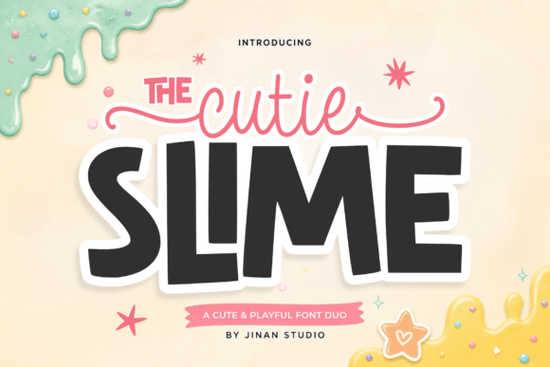
Cutie Slime Duo Font is a font pairing that combines a chunky, bold sans serif with a flowing handwritten script. It draws from slime textures and candy-colored nostalgia, giving designers a cheerful set of tools for projects that need personality without sacrificing readability. If you work on kids' products, party invitations, playful branding, or social media graphics, this duo covers both display and script needs in one download.
What makes Cutie Slime different from other playful fonts?
Most playful fonts lean either too cartoonish or too subtle. Cutie Slime sits in a useful middle ground. The bold sans serif has thick, rounded letterforms that hold up well at large sizes think packaging headers, t-shirt designs, or poster titles. The accompanying script adds a hand-drawn, slightly bubbly quality that works for subheadings, quotes, and accents.
Together, they give you contrast without clashing. You don't need to hunt for a matching script separately because the pair was designed to work as a set. That saves time, especially when you're juggling multiple client projects or building out a product line for a print-on-demand shop.
Who is this font best suited for?
Cutie Slime works well for a specific range of creative work:
- Print-on-demand sellers designing mugs, stickers, tote bags, and children's apparel
- Small business owners creating branding for bakeries, toy shops, or kids' activity centers
- Crafters making party invitations, scrapbook pages, or greeting cards
- Social media managers who need fun, eye-catching text for posts and stories
- Teachers and parents designing classroom materials or birthday party printables
Because the font is bold and high-impact, it reads well even at smaller sizes on products like stickers and labels. The script portion adds warmth, which is useful when you want designs to feel personal rather than corporate.
How does it compare to other script and display font duos?
If you've browsed Creative Fabrica before, you know there are plenty of font pairings available. Here's how Cutie Slime stacks up against similar options:
Amellia Font offers an elegant, flowing script style that leans more feminine and refined. It's great for wedding invitations and boutique branding but doesn't have the same playful, chunky energy. If your project calls for something sweet but sophisticated, that could be a better fit. You can browse more about the Amellia script style for comparison.
Lasso Lore Font brings a western, hand-lettered feel. It's bold and textured but targets a completely different mood rustic rather than cute. Designers working on country-themed or outdoor branding might prefer it over Cutie Slime's candy-inspired aesthetic. There's more detail on what Lasso Lore offers in its own breakdown.
Samantha Handwriting Font is one of the most popular handwritten fonts around. It's versatile and clean, but it doesn't include a bold display companion the way Cutie Slime does. You'd need to find a separate display font to pair with it. You can learn more about Samantha's handwriting style if you want something more understated.
Cute Dog Font shares a similar playful spirit and is great for animal-themed or kid-focused projects. However, it has a different personality more quirky and pet-oriented. If your audience skews toward pet lovers or animal content, that font might connect better. Check out the Cute Dog font details for that option.
Cutie Slime's main advantage is that everything you need comes in one package. The display and script are designed to complement each other, so you spend less time experimenting with pairings and more time actually designing.
Tips for getting the most out of this font duo
- Use the bold sans serif for headlines and the script for accents or short phrases avoid setting long paragraphs in the script
- Pair with bright, saturated colors to match the slime-inspired aesthetic
- Add subtle texture or shadow effects to the display font for extra depth on merchandise
- Test readability at your final output size before committing to a print run
- Mix with simple, clean sans serif fonts for body text to keep layouts balanced
If your projects lean toward fun, colorful, and kid-friendly, Cutie Slime is a solid addition to your font library that won't leave you scrambling for a matching script companion.